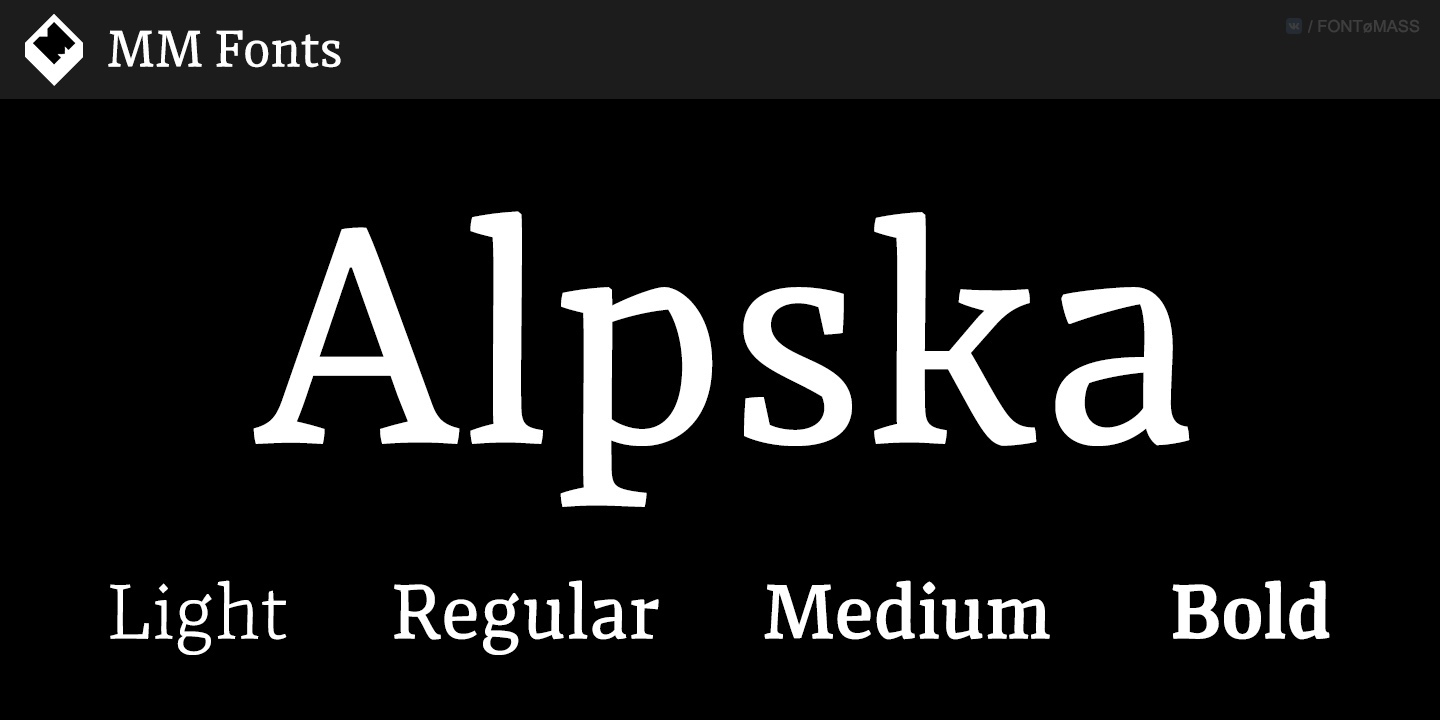
MM Alpska Font
MM Alpska Font is perfect for mountain resort branding, Alpine tourism companies, outdoor adventure gear, ski lodge identity, mountaineering equipment brands, and high-altitude expedition materials. Its majestic character makes it ideal for Swiss hospitality venues, mountain cabin retreats, Alpine hiking organizations, snowboarding equipment manufacturers, mountain rescue services, and any project requiring peak excellence with Alpine heritage and mountainous grandeur appeal.
This font is exciting because it captures the breathtaking majesty and pristine beauty of Alpine landscapes while delivering exceptional functionality for outdoor and tourism communications that demand both elegance and ruggedness. The masterfully crafted letterforms evoke images of snow-capped peaks, crystal-clear mountain air, and the timeless appeal of Alpine culture, creating powerful emotional connections that resonate with audiences seeking authentic mountain experiences and outdoor adventure.
The MM Alpska Font family typically includes Light, Regular, Medium, and Bold weights with mountainous alternates, Alpine-inspired ligatures, and peak decorative elements that enhance its majestic personality. This comprehensive collection enables outdoor professionals to create prestigious brand systems that maintain Alpine authenticity while providing flexibility for various mountain applications requiring both heritage credibility and contemporary international appeal.
Whether you're developing identity systems for mountain resorts, creating materials for Alpine adventure companies, or designing promotional content for high-altitude tourism services, MM Alpska Font Free Download delivers the Alpine elegance and mountainous grandeur that connects with outdoor enthusiasts worldwide. Its magnificent presence ensures memorable brand recognition across digital platforms and print materials, making it perfect for websites, mobile applications, and mountain campaigns that celebrate Alpine heritage, outdoor adventure, and the transformative power of mountain experiences with contemporary sophistication and authentic Alpine charm.